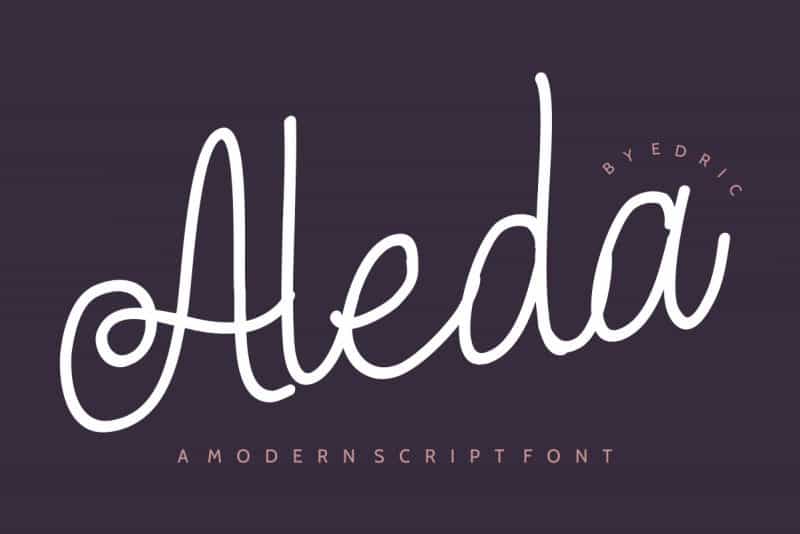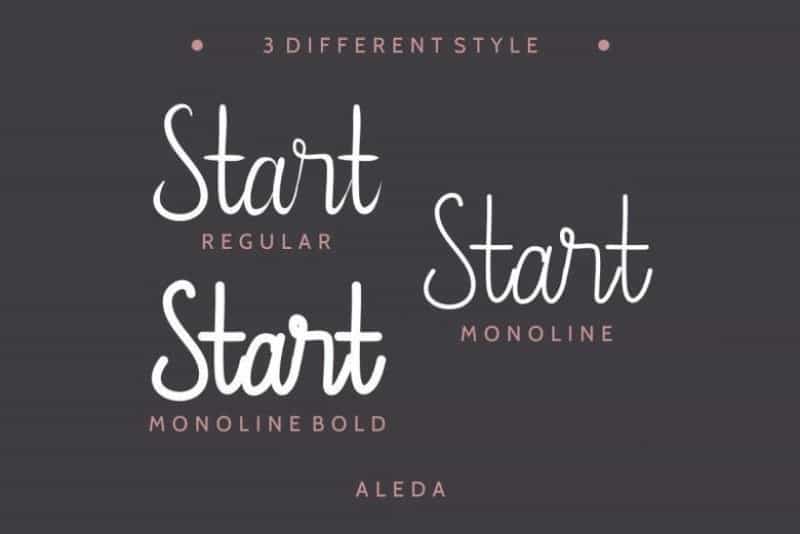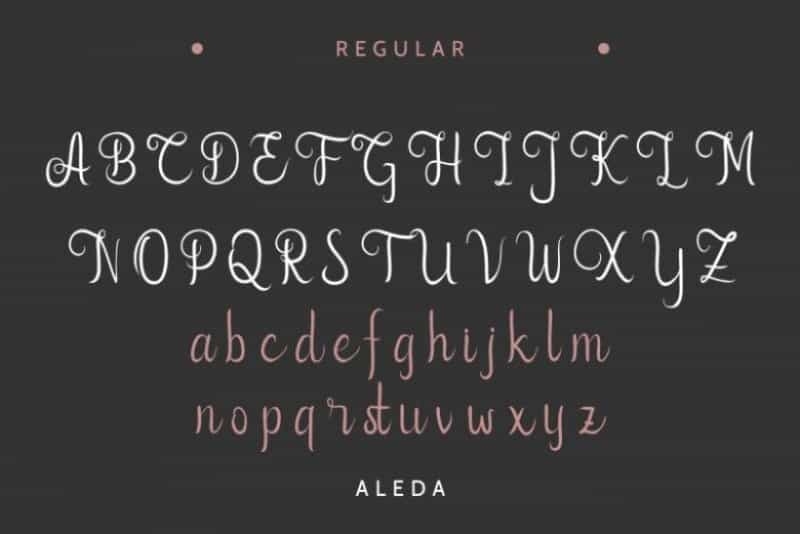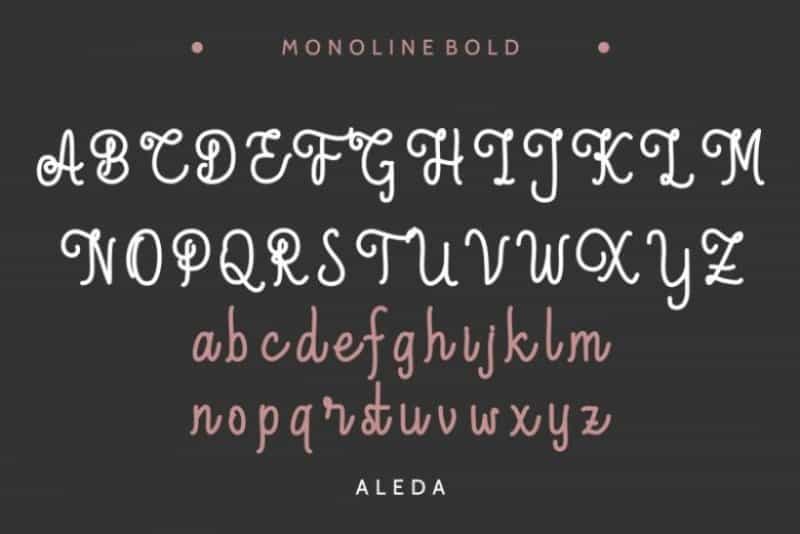
Hi Everyone! Introducing a new handwritten font called Aleda! Aleda is a new modern script handwriting feminine signature style font. It’s has a fresh, elegant, natural, and stylish glyph. This premium font will be perfect for any handwritten project, comic, or branding.